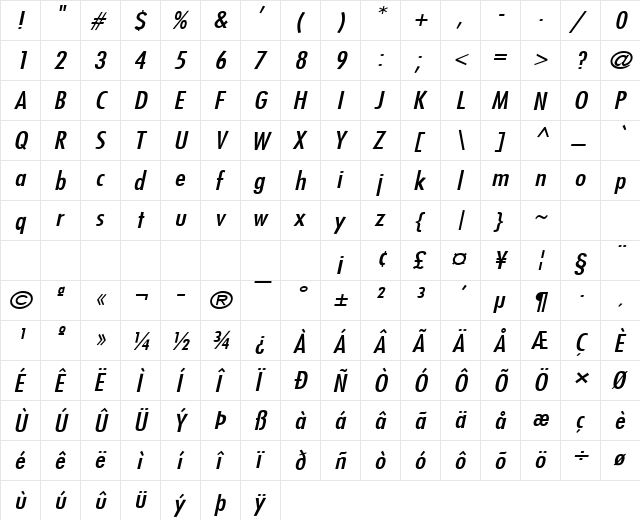
Fuji-Extended Italic
Design Context for Fuji-Extended Typeface
Fuji-Extended offers clean, dependable letterforms without strong stylistic allegiance, making it a practical choice for designers who need flexibility. The dynamic lean of this cut emphasises speed and emphasis in any layout.
Pro Tip: Try Fuji-Extended for annotation and caption copy alongside an upright companion — the contrast in angle creates a dynamic but ordered typographic system.